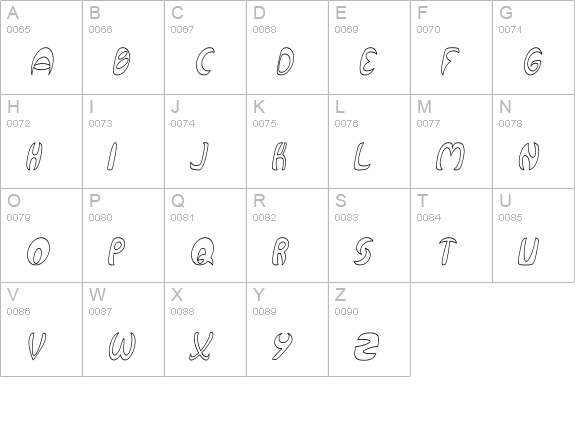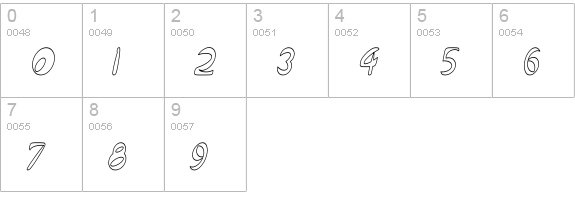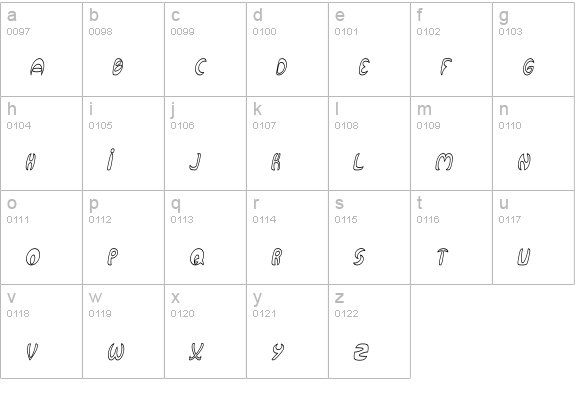
Qurve Hollow Thin Italic is a delicate, low-contrast, italic variant in the Qurve typeface family \xE2\x80\x94 well suited to fashion editorial, minimal branding, and high-contrast display.
Qurve Hollow Thin Italic font is a beautifully crafted typeface that exudes elegance and sophistication. With its delicate curves and slender strokes, this font adds a touch of grace to any design project. The thin and italicized style of Qurve Hollow Thin Italic makes it perfect for creating a refined and refined look. This font is not only stylish, but it is also incredibly versatile. Whether you are designing a logo, creating a poster, or crafting a wedding invitation, Qurve Hollow Thin Italic font will elevate your design to new heights. Its unique and distinctive letterforms make a statement and leave a lasting impression. One of the best aspects of Qurve Hollow Thin Italic font is that it is free. That's right, you can download this exceptional font without spending a dime. Head over to FontsMarket.com, and you'll find Qurve Hollow Thin Italic font available for free download. This means that you can access this amazing font and use it in your projects without any restrictions. So, if you are looking for a font that is both elegant and free, look no further than Qurve Hollow Thin Italic. With its timeless appeal and versatile design, this font is sure to become a favorite in your font library. Don't miss out on the opportunity to enhance your designs with this stunning typeface. Download Qurve Hollow Thin Italic font today from FontsMarket.com and elevate your design projects to new levels of sophistication.